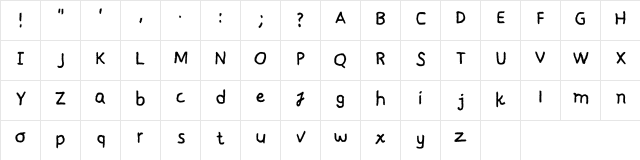
Ammaanney Regular
Design Context for Ammaanney Typeface
Ammaanney is a composed and adaptable typeface that performs quietly and consistently across a wide range of design contexts.